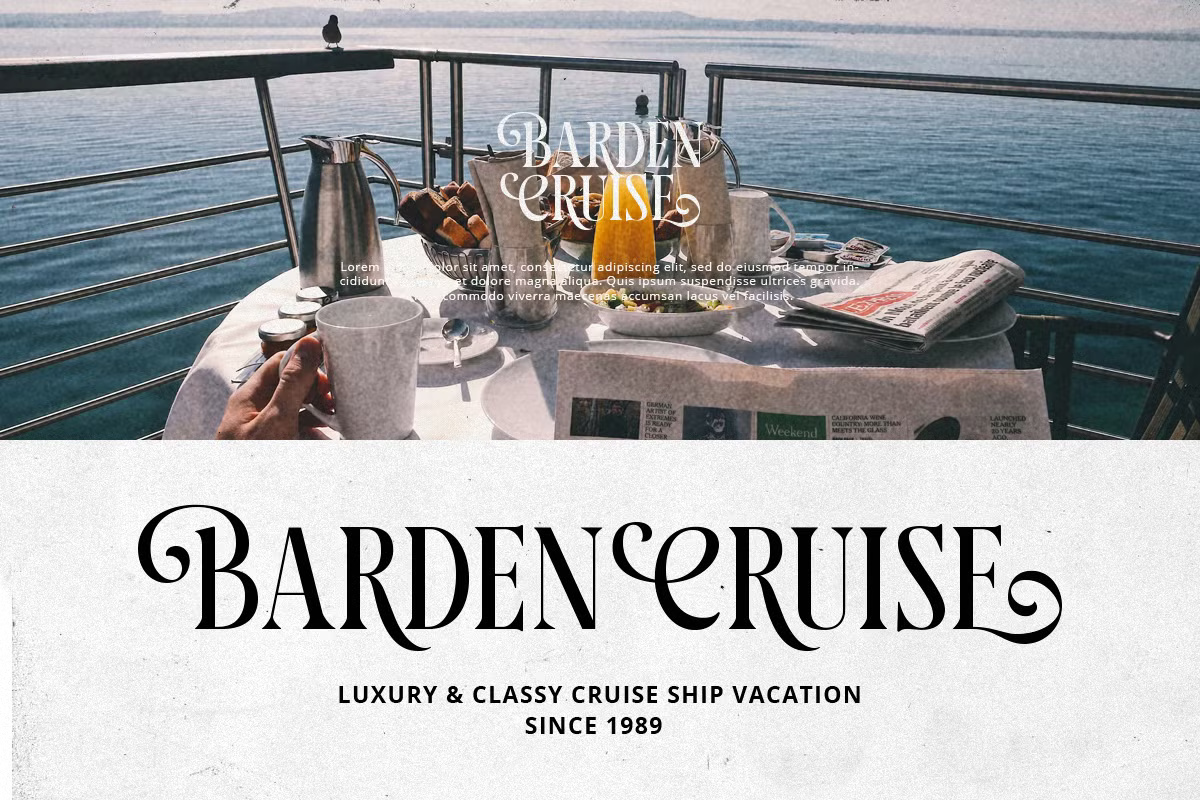
Markstyle Font
Markstyle is a sophisticated serif typeface featuring elegant rounded corners, graceful swashes, and stylish ligatures. Perfect for branding, packaging, and stationery designs, it is particularly well-suited for luxurious wedding invitations. With an extensive selection of alternates and ligatures, Markstyle allows you to create unique and visually stunning typography effortlessly.